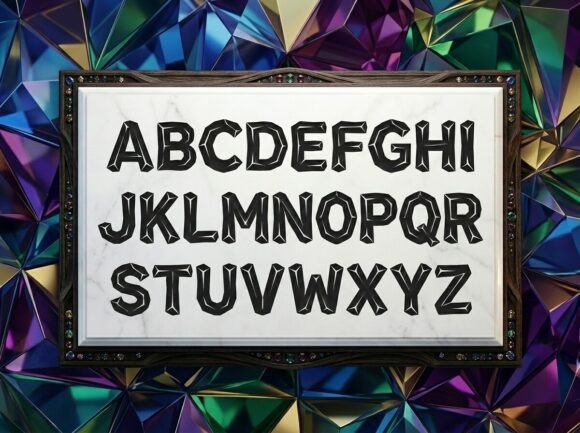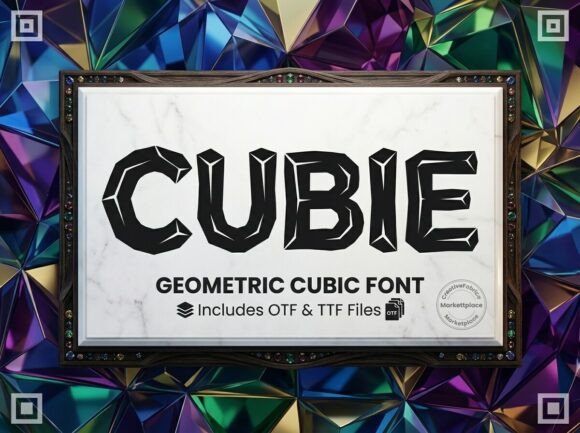
Add a New Dimension to Your Designs with Cubie Font
In the world of typography, fonts play a crucial role in conveying the tone and personality of a brand or design. When it comes to making a bold statement, a well-crafted display font can be a game-changer. Introducing Cubie, a bold display font that is inspired by the sharp facets of isometric geometry. With its heavy, blocky letterforms and carved aesthetic, Cubie is the perfect choice for designers looking to add a new dimension to their designs.
The Inspiration Behind Cubie
Cubie is a font that draws inspiration from the clean lines and precision-cut industrial blocks of isometric geometry. The result is a typeface that features massive visual weight and clean, architectural lines. The font’s blocky letterforms are characterized by a “carved” or beveled aesthetic, which gives it a sense of solidity and structure. This unique look makes Cubie an extraordinary choice for a variety of design applications.
Perfect for Gaming Logos and Tech-Focused Branding
When it comes to gaming logos and tech-focused branding, a bold and attention-grabbing font is essential. Cubie delivers a sense of structured power and polished, three-dimensional prestige to every word. Its heavy, blocky letterforms make it perfect for creating eye-catching logos and titles that demand attention. Whether you’re crafting a title for a futuristic engineering project or a standout logo for a digital startup, Cubie is the perfect choice.
Urban Architectural Layouts and High-Impact Social Media Headers
Cubie’s clean, architectural lines and massive visual weight make it an excellent choice for urban architectural layouts and high-impact social media headers. The font’s carved aesthetic gives it a sense of solidity and structure, which is perfect for creating visually striking designs that stand out from the crowd. Whether you’re designing a brochure for a real estate company or a social media header for a tech brand, Cubie is sure to make a lasting impression.
Key Features of Cubie Font
- Bold Display Font: Cubie is a bold display font that makes a statement with its heavy, blocky letterforms.
- Isometric Geometry Inspiration: The font’s inspiration from isometric geometry gives it a unique, carved aesthetic.
- Clean Architectural Lines: Cubie’s clean lines make it perfect for creating visually striking designs.
- Massive Visual Weight: The font’s massive visual weight makes it perfect for creating eye-catching titles and logos.
Tips for Using Cubie Font
When using Cubie font, here are a few tips to keep in mind:
- Use it for Headlines: Cubie is perfect for headlines and titles, where its bold and attention-grabbing design can shine.
- Experiment with Colors: The font’s carved aesthetic looks great with a variety of colors, so don’t be afraid to experiment.
- Pair it with Other Fonts: Cubie can be paired with other fonts to create a unique and visually striking design.
In conclusion, Cubie font is a bold display font that is perfect for designers looking to add a new dimension to their designs. With its inspiration from isometric geometry, clean architectural lines, and massive visual weight, Cubie is an extraordinary choice for gaming logos, tech-focused branding, urban architectural layouts, and high-impact social media headers. Whether you’re a designer, craftsperson, or simply someone looking to create visually striking designs, Cubie is a font that is sure to deliver.